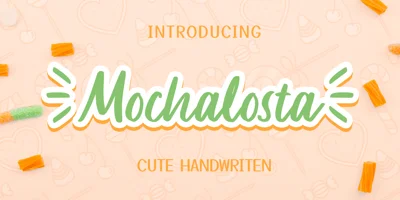
Mochalosta Font
Mochalosta Font is perfect for specialty coffee shop branding, artisanal café marketing, mocha beverage packaging, coffee roastery communications, barista training materials, and warm coffee culture campaigns. Its rich character makes it ideal for coffee roasters, specialty café owners, coffee bean importers, barista equipment suppliers, and any application requiring aromatic typography that conveys coffee richness, café warmth, and the sophisticated pleasure of premium coffee experiences and artisanal coffee craftsmanship.
Mochalosta Font is exciting because it captures the rich aroma and warm comfort of premium coffee culture through richly crafted letterforms that evoke the satisfying ritual and sophisticated pleasure of expertly prepared coffee beverages. Its coffee-inspired proportions and café details reflect the artisanal craftsmanship of specialty coffee preparation and the cozy atmosphere that makes coffee shops beloved community gathering spaces, making it perfect for brands celebrating authentic coffee culture. The font's coffee character transforms communications into expressions of café warmth and coffee passion.
Mochalosta Font family includes coffee-rich weight variations typically featuring Light, Regular, Medium, and Bold options with warm styling that maintains coffee authenticity. The family often incorporates coffee symbols, café ornaments, and coffee culture elements designed for specialty beverage applications, providing designers with comprehensive tools for creating authentic, coffee-focused typographic compositions.
When selecting specialty coffee typography solutions, Mochalosta Font represents an exceptional choice for coffee culture and café projects. This rich typeface brings instant coffee authenticity to any design, making it invaluable for coffee shops, specialty roasters, and café businesses celebrating coffee craftsmanship. Whether you're developing coffee shop branding, creating specialty coffee packaging, or designing barista training materials, Mochalosta Font provides the coffee richness and café authenticity essential for capturing coffee culture passion in today's specialty coffee marketplace.